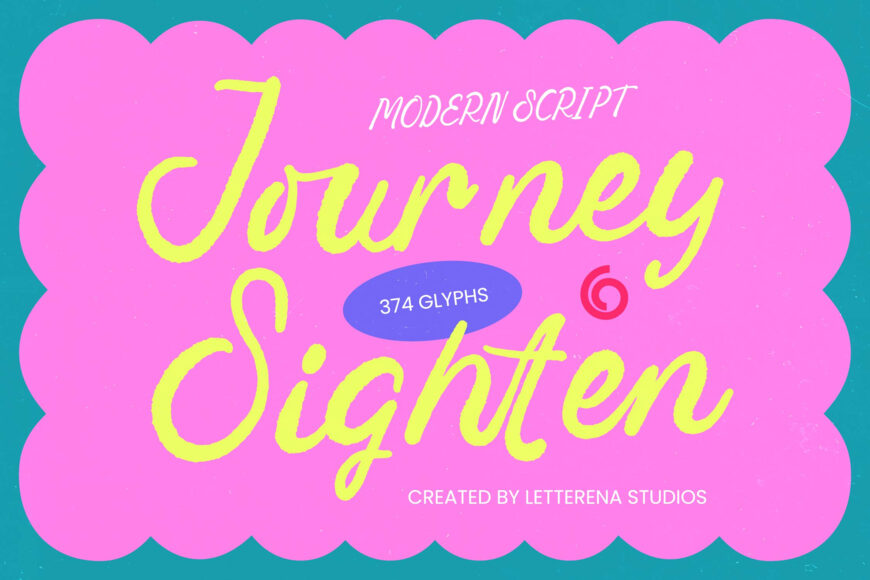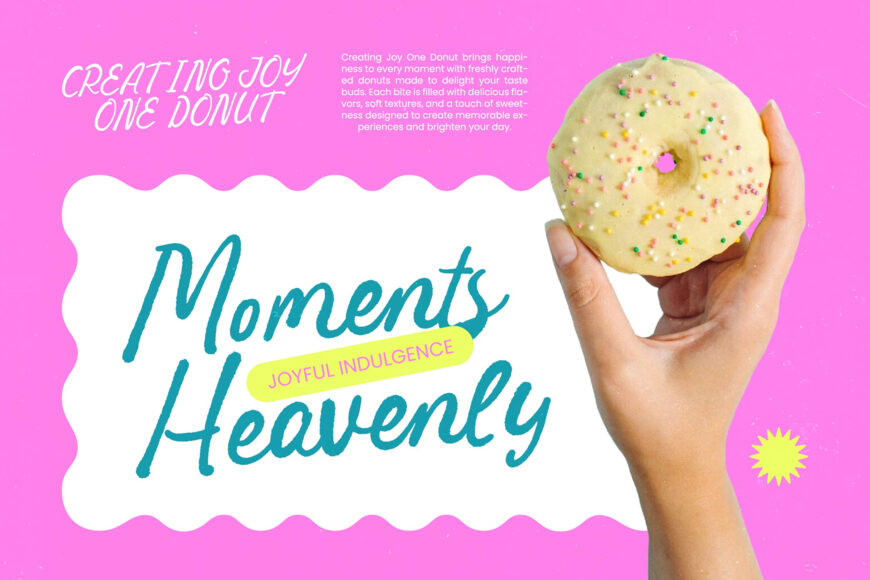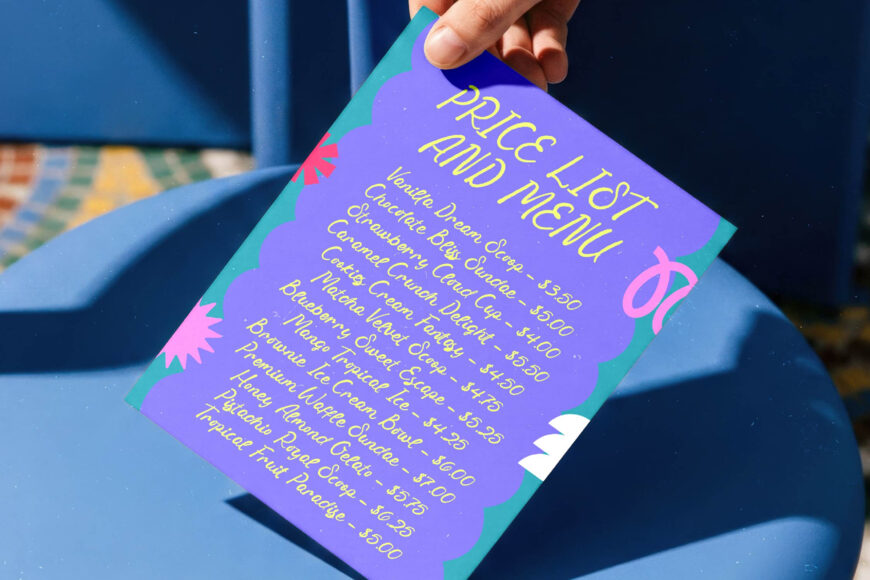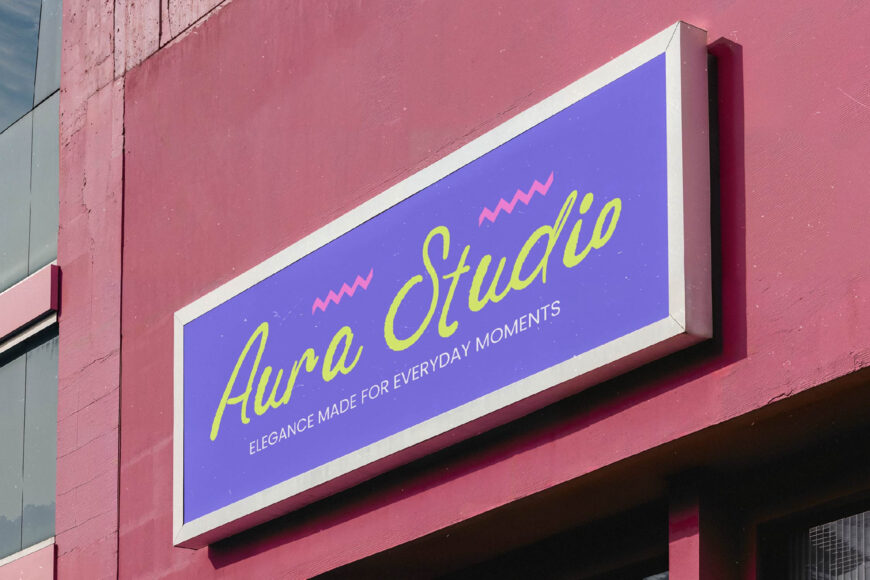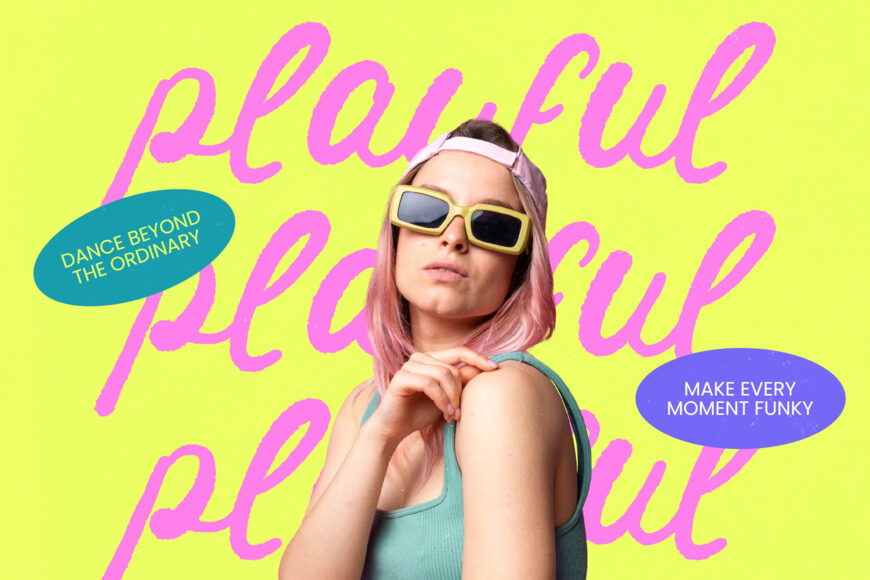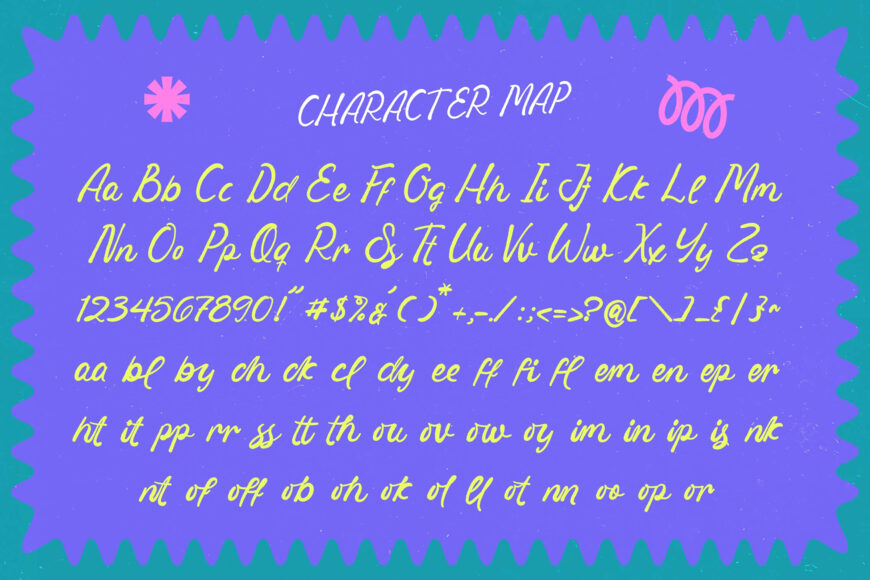
Journey Sighten Font
Elevate your designs with Journey Sighten, a modern script font that blends hand-drawn warmth with contemporary sophistication. Its fluid, organic strokes create an authentic balance of playful charm and polished elegance. Featuring multilingual support and 374 glyphs, it suits international projects and complex layouts.
Subtle character textures add handcrafted depth, making it ideal for luxury branding, premium packaging, editorial projects, wedding stationery, lifestyle graphics, fashion campaigns, invitations, and memorable logos.